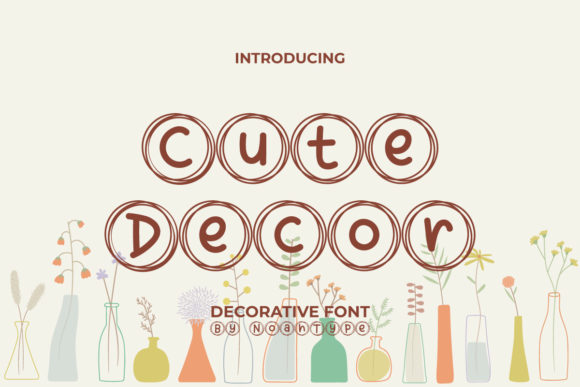
**Unlock the World of Whimsy with Cute Decor Font**
Embark on an enchanting typographic journey with Cute Decor Font, a charming and versatile decorative typeface that will transform your designs into enchanting masterpieces. Its playful curves, intricate swirls, and playful undertones will ignite your imagination, inviting you to create designs that capture hearts and evoke a sense of unbridled joy.
Whether you're crafting eye-catching headings, vibrant logos, or whimsical posters, Cute Decor will elevate your creations to new heights of aesthetic delight. Its adaptability makes it perfect for businesses of all shapes and sizes, from fashion boutiques to game studios, schools, and beyond. Unleash your creativity and make a statement with Cute Decor, the font that will make your brand sing and your designs dance.
**Why Choose Cute Decor Font?**
* **Enchanting Aesthetics:** Captivate your audience with its whimsical and adorable character, adding a touch of magic to every design.
* **Versatile Application:** Seamlessly adapt it to a wide range of projects, from elegant headings to playful posters, ensuring endless creative possibilities.
* **Emotional Connection:** Its charming curves and playful undertones evoke a sense of warmth and familiarity, forging an instant connection with your customers.
* **Effortless Legibility:** Experience exceptional readability across all sizes, ensuring your message is conveyed with clarity and impact.
* **Exceptional Craftsmanship:** Meticulously crafted by NoahType, Cute Decor Font boasts unparalleled quality and attention to detail, empowering you to create designs that stand out from the crowd.
Embrace the power of Cute Decor Font and witness the transformation of your designs into works of art. Its enchanting aesthetic and versatility will unlock a world of creative possibilities, allowing you to create designs that inspire, captivate, and leave a lasting impression. Download Cute Decor today and embark on a typographic adventure like no other!